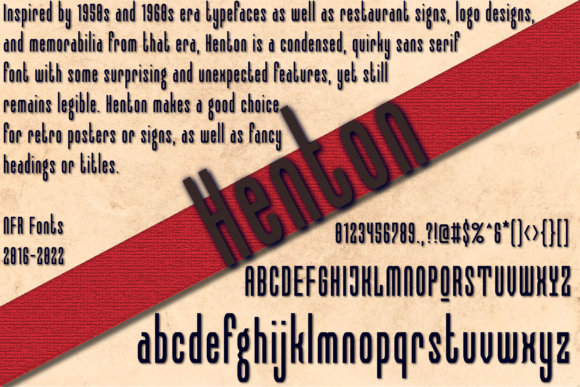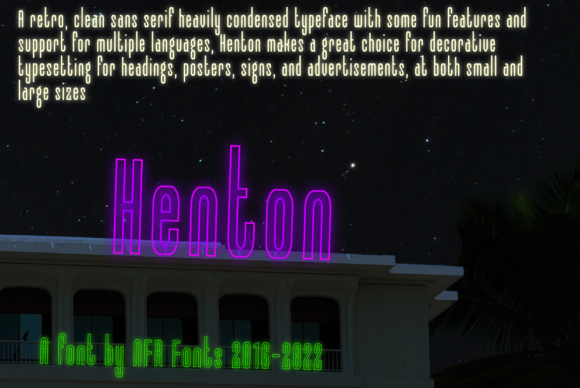
The Perfect Typographic Touch: Henton Font
Have you ever found yourself stuck in a creative rut, staring at a blank canvas or a blank document, searching for that one thing to bring your design to life? You know, that one little detail that makes all the difference? For designers, this moment is all too familiar. But what if I told you that the answer lies in the Henton Font? A cool and modern display font, designed to add that perfect typographic touch to your designs.
Whether you’re working on product packaging, branding projects, magazine covers, or even just a social media post, the Henton Font is the perfect choice. Its sleek and sophisticated design makes it a valuable asset for any designer looking to elevate their work. With the Henton Font, you can express your creativity and make your designs stand out from the crowd.
Henton Font Key Features
- Font Family: Henton Font is a sans-serif font family that offers a clean and modern look.
- Unique Characteristics: Henton Font features a unique blend of geometric and organic elements, giving it a distinctive look that is both modern and elegant.
Henton Font Review
Overall, I think Henton Font is a solid choice for designers looking for a clean and modern sans-serif font. ✨ It’s great for body text, and the subtle rounded edges give it a friendly feel. The font family is quite versatile, with a range of weights to choose from, making it suitable for a variety of applications.
- Legibility: Henton Font is very easy to read, even at smaller sizes, making it perfect for digital applications.
- Flexibility: The font family includes a range of weights, from light to bold, allowing for a lot of creative freedom.
- Compatibility: Henton Font is widely supported across different operating systems and devices.
However, there are a few limitations to consider. ⚠️ The font may not be the best choice for highly technical or formal content, as it can come across as slightly casual. Additionally, the font’s rounded edges may not be suitable for designs that require a more aggressive or edgy feel.
Overall, I think Henton Font is a great choice for designers who want a clean and modern sans-serif font that’s easy to read and versatile. While it may not be the best choice for every project, it’s definitely worth considering for a variety of applications.
Tips: Use Henton Font for headings and titles to add a touch of elegance to your designs. Experiment with different font sizes and colors to create visually appealing effects.
Tips: Use Henton Font to create beautiful typography in your graphics and illustrations. Experiment with layer styles and effects to enhance the font’s appearance.
Tips: Use Henton Font to add a touch of sophistication to your presentations and documents. Experiment with font sizes and colors to create a visually appealing design.
Henton Font is ideal for:
- Brand logos and typography
- Wedding and
Alternatives to Henton Font for Designers
Montserrat is a sans-serif typeface designed by Julieta Ulanovsky. It is ideal for use in digital interfaces and applications where a clean and modern aesthetic is desired. Montserrat is a great alternative to Henton Font as it offers a similar sans-serif style with a more extensive character set.
Comparison: Montserrat is more versatile and offers a wider range of font weights, making it suitable for a broader range of design applications. While Henton Font has a more elegant feel, Montserrat is more functional and easier to read in digital formats.
Open Sans is a sans-serif typeface designed by Steve Matteson. It is a popular choice for digital design, including websites, mobile applications, and e-books. Open Sans is a great alternative to Henton Font as it offers a clean and modern aesthetic with excellent legibility.